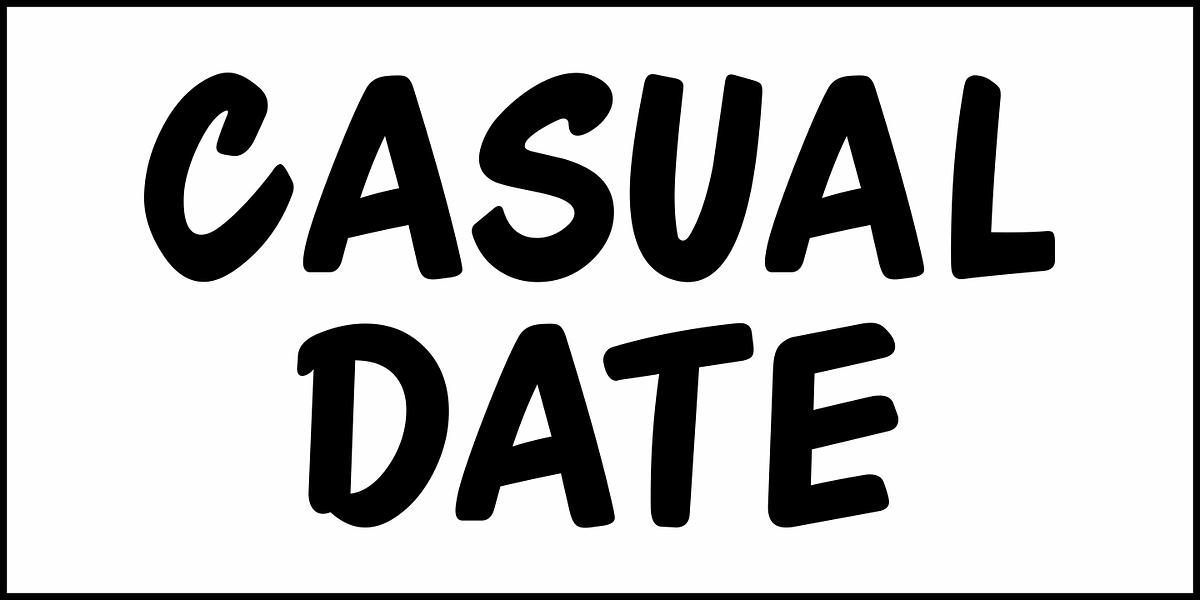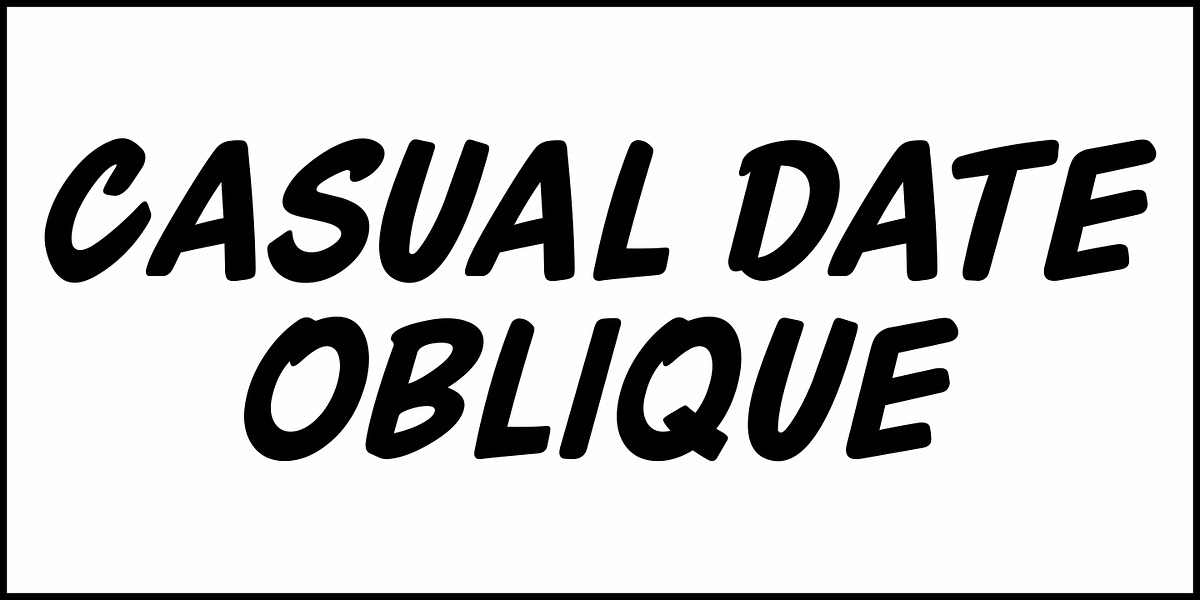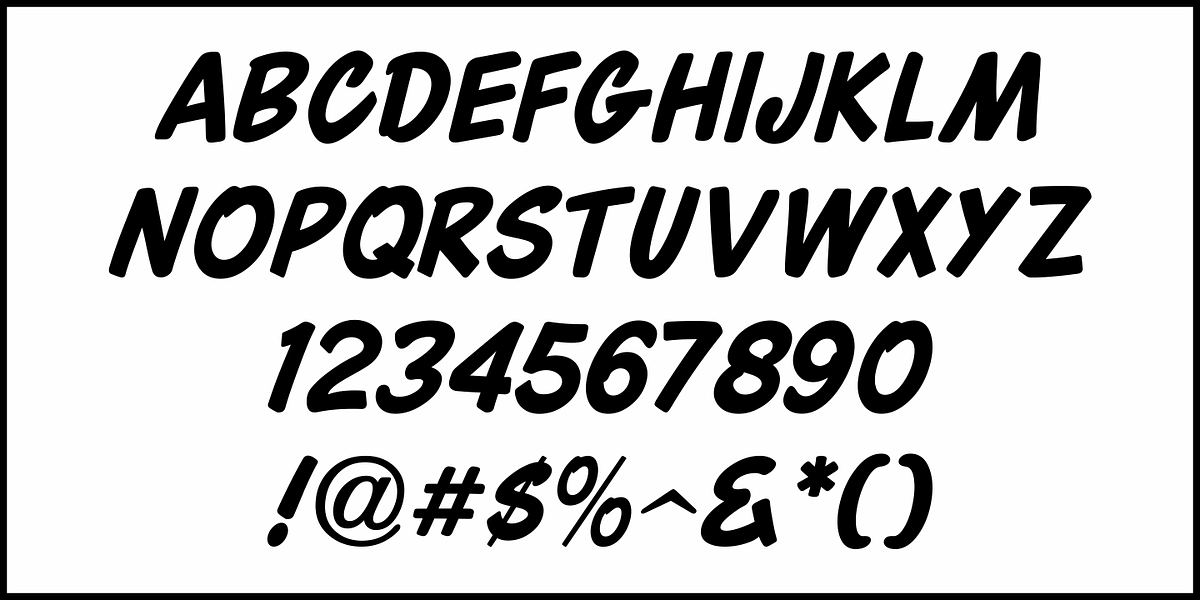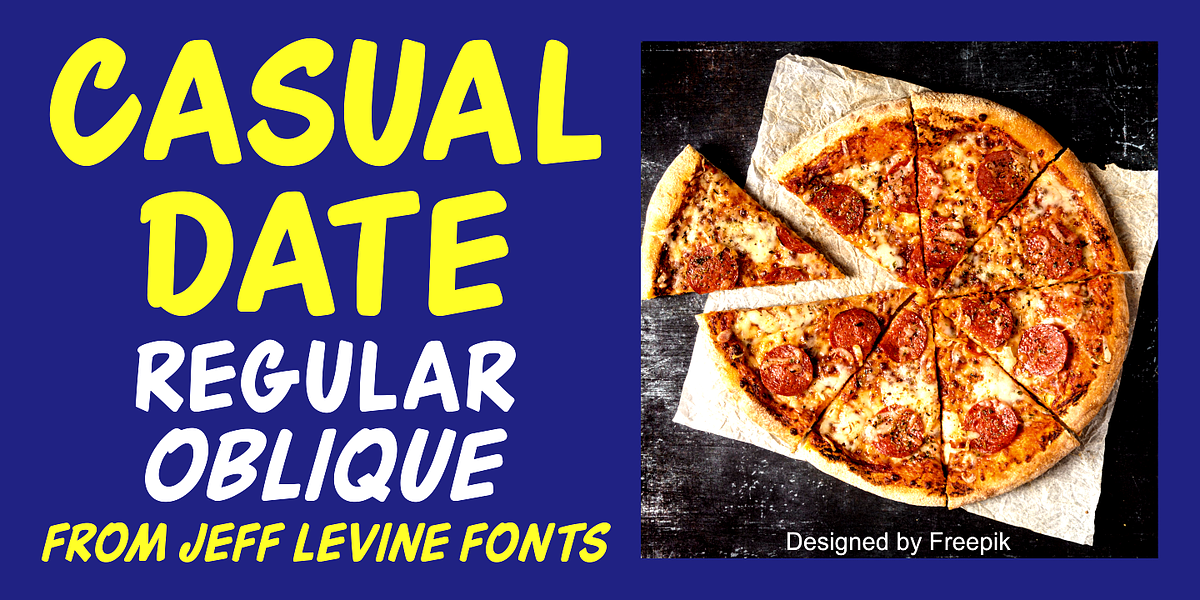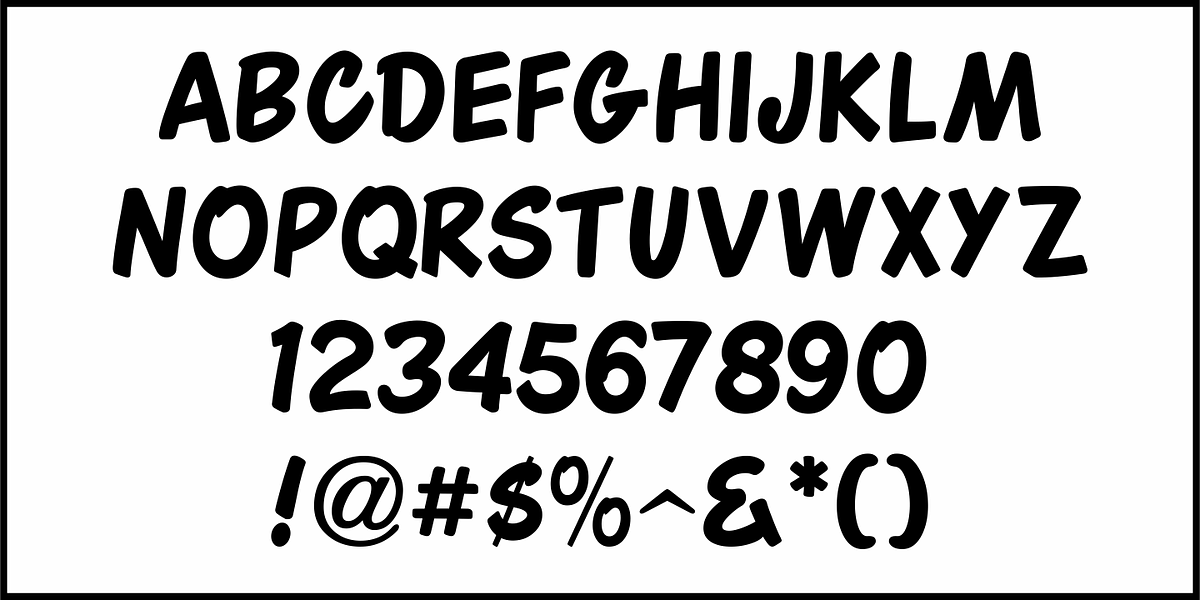
Casual Date JNL
An ad in the Sept. 2, 1948 issue of Film Daily promoting the "A Date with Judy" series of motion pictures had some word copy hand lettered in a casual, brush-style sans serif style most often found on show cards, posters and signage.
This is now available as Casual Date JNL in both regular and oblique versions.